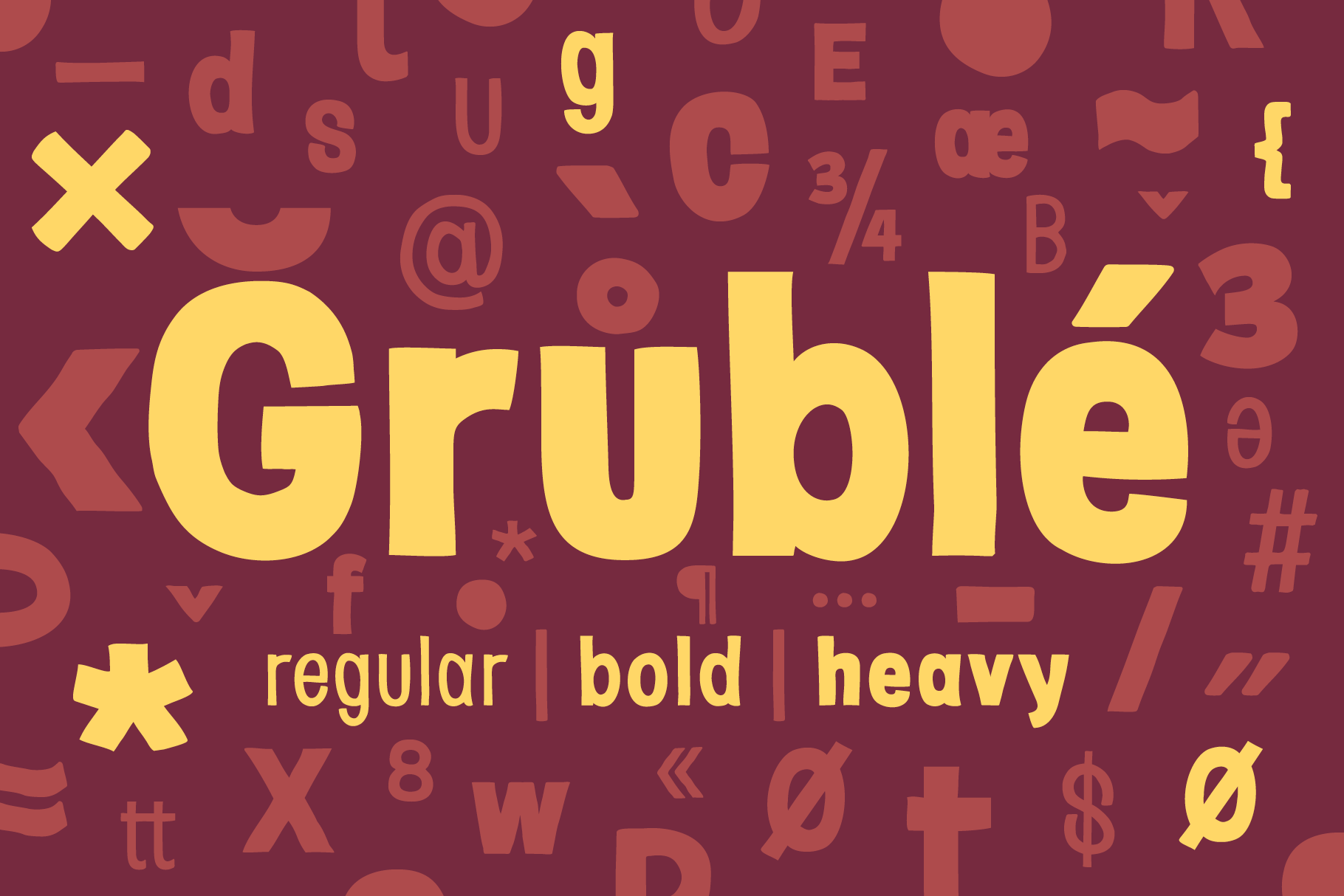
Gruble – Hand-drawn Font
Introducing Gruble: Where Art Meets Functionality
Experience the distinctive charm of "Gruble," a unique OpenType font family that breathes life into your text. With its hand-drawn elegance, "Gruble" offers a one-of-a-kind visual identity, perfect for bringing your creative vision to life.
Featuring three versatile styles, "Gruble" adapts seamlessly to various design contexts. Its 395 meticulously crafted glyphs include a comprehensive range of special characters and diacritics, making it ideal for multilingual projects.
Elevate your designs with "Gruble"—where artistic flair meets practical versatility.